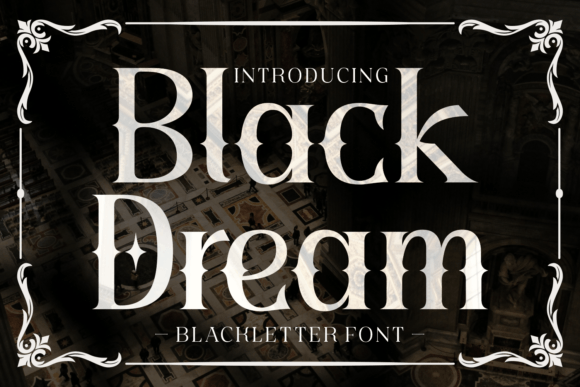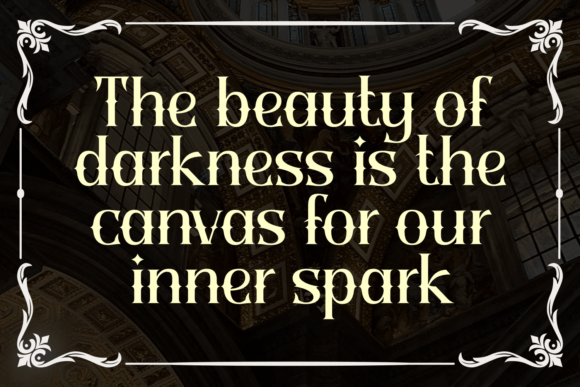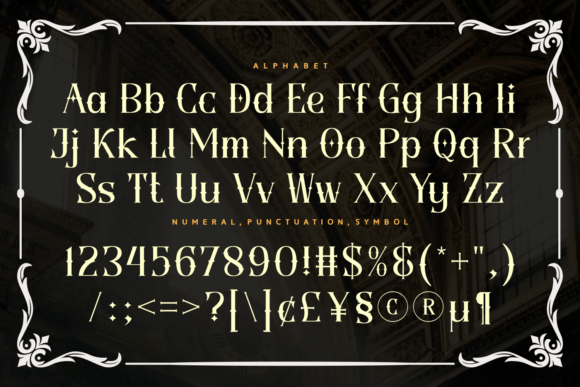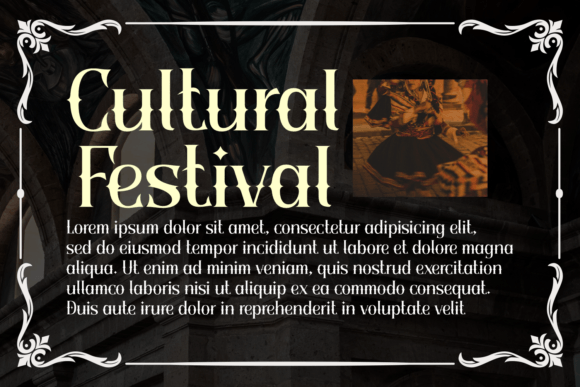
Black Dream Font: Gothic Typography for Dramatic Logo Design
About the Black Dream Font
Presenting Black Dream Font, a unique and stylish typeface that will make your work stand out. Black Dream is a striking blackletter font, blending gothic elegance with modern flair. Its sharp edges and intricate details evoke medieval manuscripts, perfect for creating dramatic logos, posters, and branding. Ideal for projects needing bold, expressive typography with a touch of vintage sophistication.
Black Dream excels in headline treatments, short text blocks for posters and branding applications, and even select packaging designs where a strong visual impact is desired. Its intricate detail, however, makes it unsuitable for body text or UI elements where readability at smaller sizes is crucial. Long paragraphs set in Black Dream would be visually overwhelming and difficult to read.
The font’s personality is bold and dramatic, with a touch of vintage sophistication. It is best suited for brands conveying luxury, heritage, or a sense of strong identity. Think high-end fashion, artisanal goods, or perhaps a historical society.
For effective pairings, consider a clean sans-serif like Montserrat for body copy to provide contrast and enhance readability. Alternatively, a classic serif such as Garamond could add a touch of refined elegance, complementing Black Dream’s gothic influences. Avoid pairing it with other highly decorative or script fonts, which would create visual clutter.
Black Dream Font Usage Examples
Black Dream Font Example